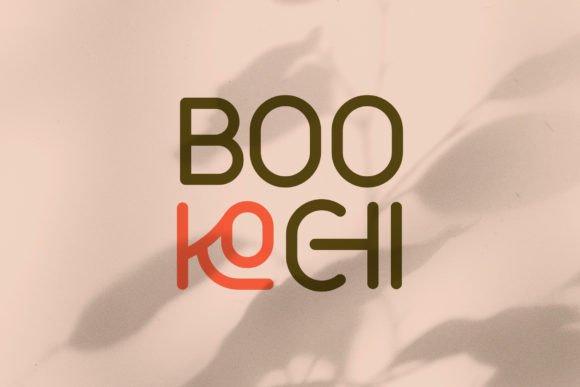
Introducing Bookochi Font: The Modern Sans-Serif Marvel
In the realm of typography, fonts play a crucial role in conveying messages, expressing emotions, and creating a lasting impression. With the vast array of fonts available, it can be challenging to find the perfect one that embodies your creative vision. However, if you’re on the hunt for a cool and modern sans-serif font that can elevate your designs, look no further than Bookochi Font.
What is Bookochi Font?
Bookochi Font is a sleek and contemporary sans-serif font designed to make a statement. Its clean lines, elegant curves, and precise craftsmanship make it an excellent choice for a wide range of creative projects. Whether you’re working on a branding campaign, a website, or a print project, Bookochi Font is sure to impress.
Key Features of Bookochi Font
- Modern Sans-Serif Design: Bookochi Font boasts a modern sans-serif design that exudes sophistication and style.
- PUA Encoding: This font is PUA (Private Use Area) encoded, which means you can easily access all the glyphs and swashes, giving you maximum creative control.
- Wide Range of Applications: From branding and advertising to web design and print materials, Bookochi Font is versatile enough to be used in various creative projects.
- Easy to Read: The font’s clear and legible design ensures that your message is conveyed effectively, making it perfect for body text and headings.
Benefits of Using Bookochi Font
So, why choose Bookochi Font for your next project? Here are some benefits that make it an excellent addition to your font library:
- Enhance Your Brand’s Visual Identity: With Bookochi Font, you can create a consistent visual brand that stands out from the competition.
- Elevate Your Designs: The font’s modern design and elegant curves can add a touch of sophistication to your designs, making them more engaging and memorable.
- Streamline Your Workflow: Bookochi Font’s PUA encoding allows you to access all the glyphs and swashes easily, saving you time and effort in the design process.
- Stand Out in a Crowded Market: By using a unique and modern font like Bookochi, you can differentiate your brand and make a lasting impression on your audience.
Tips and Tricks for Using Bookochi Font
To get the most out of Bookochi Font, here are some tips and tricks to keep in mind:
- Experiment with Font Sizes: Play around with different font sizes to create visual hierarchy and emphasize important information.
- Pair it with Other Fonts: Combine Bookochi Font with other fonts to create a unique and harmonious typography scheme.
- Use Swashes and Glyphs: Take advantage of the font’s PUA encoding to add decorative touches and personality to your designs.
- Keep it Legible: Ensure that your text is easy to read by using the font at a suitable size and keeping your design clean and uncluttered.
In conclusion, Bookochi Font is a modern sans-serif font that can elevate your designs and help you stand out in a crowded market. Its clean design, PUA encoding, and versatility make it an excellent choice for a wide range of creative projects. By incorporating Bookochi Font into your font library, you can add a touch of sophistication and style to your designs, streamline your workflow, and create a lasting impression on your audience.